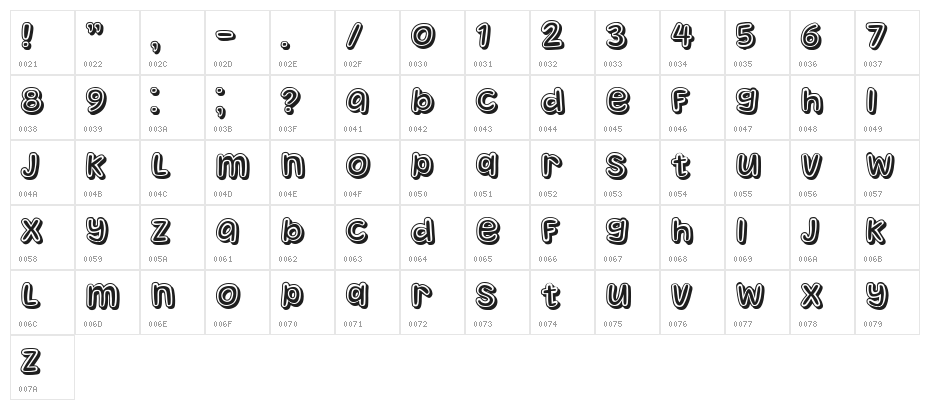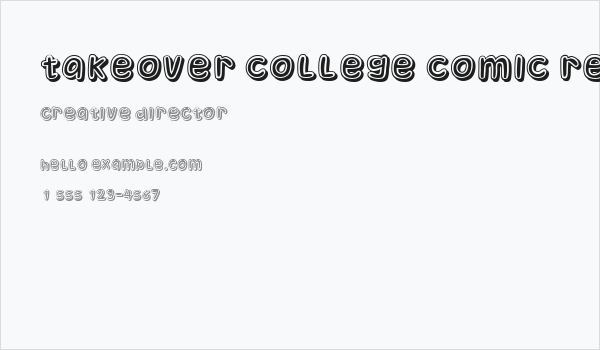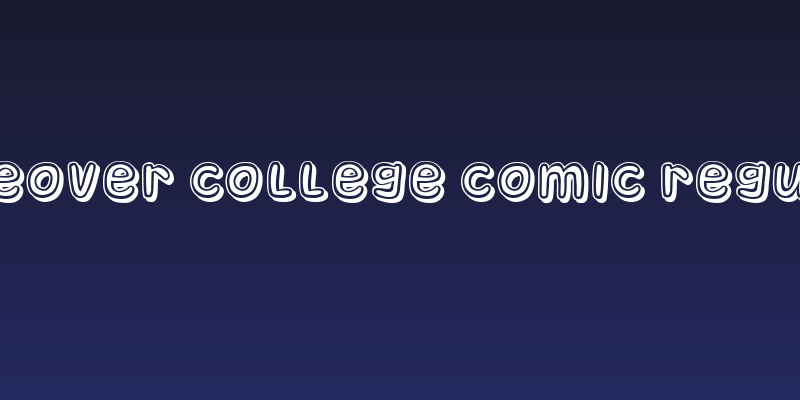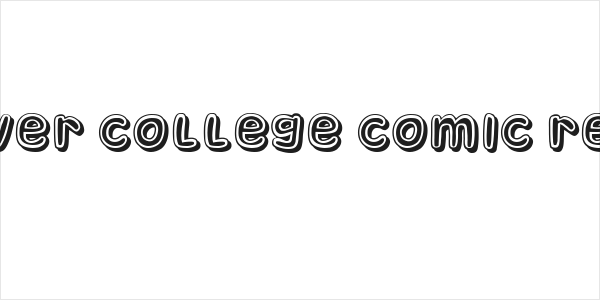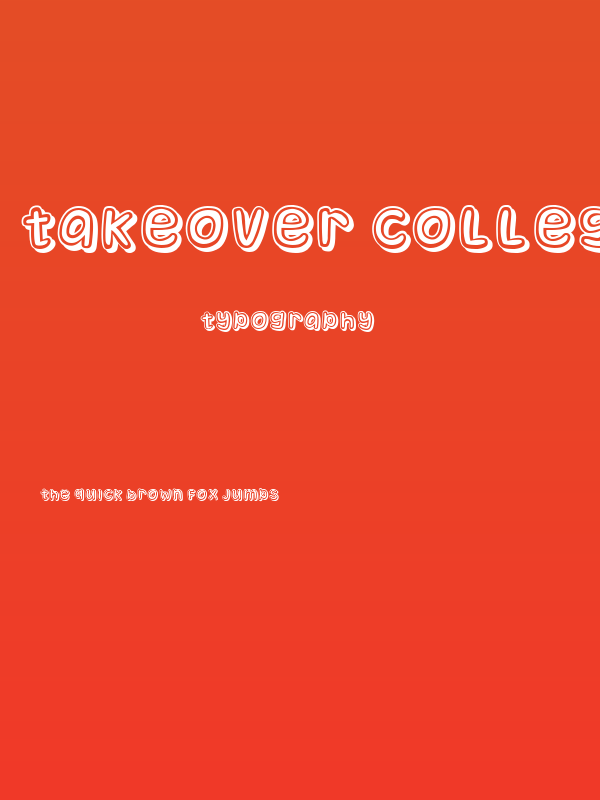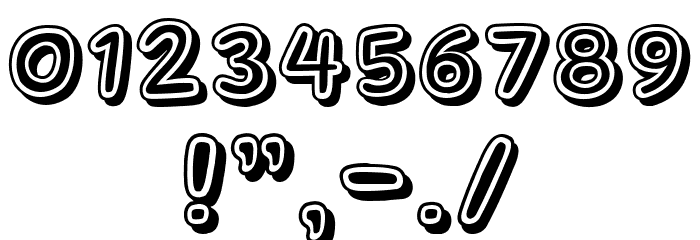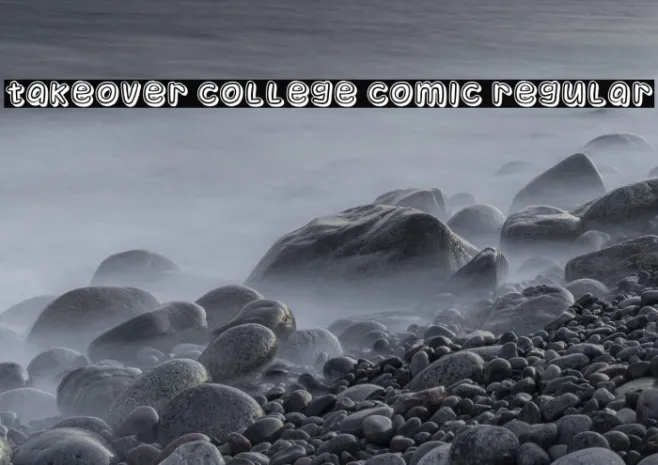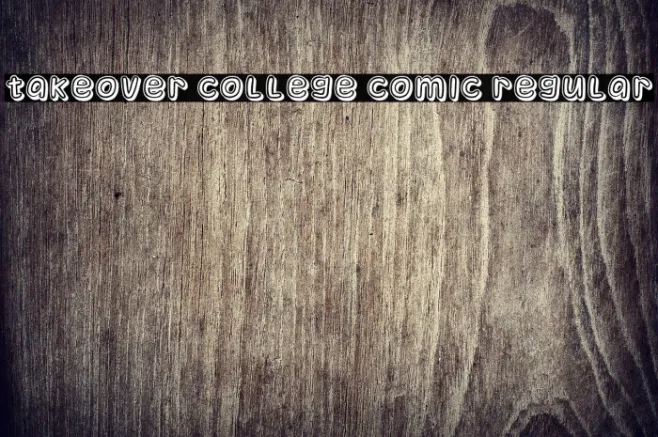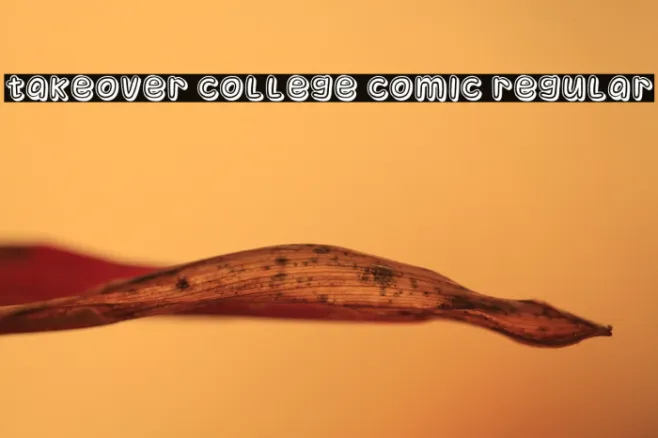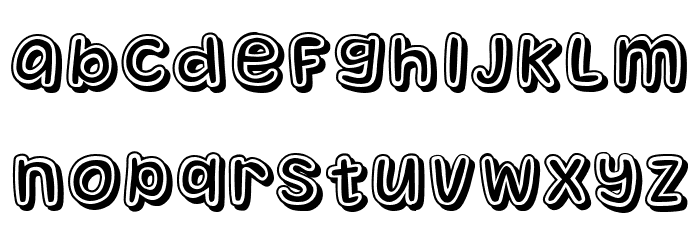
Takeover College Comic Regular Font
Takeover College Comic Regular Description
This playful and bold font features a comic-style design with thick outlines and rounded edges, giving it a fun and approachable appearance. The characters are uniformly bold with a consistent stroke width, creating a cohesive look across both uppercase and lowercase letters. The numbers and special characters maintain the same whimsical style, making it suitable for projects that require a lighthearted and engaging feel. The font's design is reminiscent of hand-drawn lettering, adding a personal touch to any text.
| Overall Style | Playful, Comic |
| Proposed Projects | Ideal for children's books, comic strips, playful branding, and posters. |